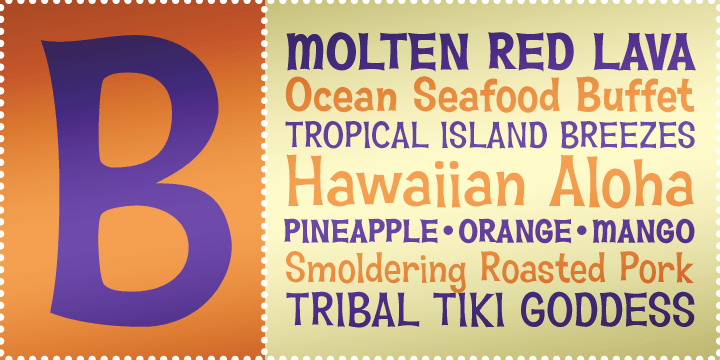
HomeFunWackyHawaiian Aloha BTN Wacky Hawaiian Aloha BTN FacebookXPinterestWhatsApp 1 of 1 About Hawaiian Aloha BTN Hawaiian Aloha is a playful, exotic, tropical font family with a relaxed mood and a pleasant, casual demeanor.  DOWNLOAD NOW People also explored Stickshift Smart Family Font Kindalike Font Quintavy Font Masa Organic Hand Font Left Bank Font Original Way Kambas Font Gellato Rush Font 217 0 TagsHawaiian Aloha BTN Font Previous articleKlutz AOE Pro CompleteNext articleCaridade LEAVE A REPLY Cancel reply Comment: Please enter your comment! Name:* Please enter your name here Email:* You have entered an incorrect email address! Please enter your email address here Website: Save my name, email, and website in this browser for the next time I comment. Personal Use Free Spaghetti Personal Use Free Read more about this font Ailand Personal Use Free Read more about this font Concre Personal Use Free Read more about this font Ashay Personal Use Free Read more about this font BLOG How to Cut Any Font on Cricut: Convert a Font to SVG (Free) Turn any font into a clean SVG so it cuts crisp on Cricut - a quick 3-step workflow using a free font-to-SVG tool. Elegant Wedding Invitation Fonts – Handwritten & Script Fonts Fonts That Capture the Spirit of New York City To increase your work productivity, choose the most readable fonts.